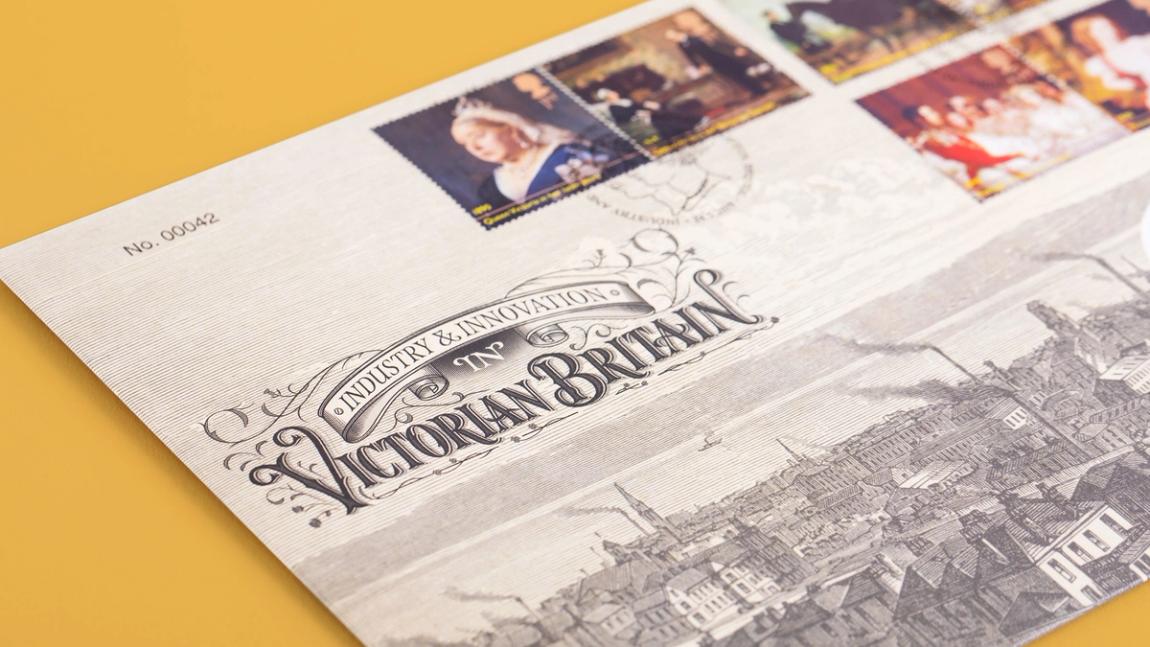
Queen Victoria Bicentenary Lettering
Elegant, commemorative lettering for a Royal Mail and Royal Mint collector’s edition celebrating Queen Victoria’s Bicentenary.
I worked with Common Curiosity to design the lettering for a limited-edition stamp and coin pack, created to mark Queen Victoria’s Bicentenary.
The packaging showcases six Special Stamps alongside an official Royal Mint Bicentenary £5 Coin.
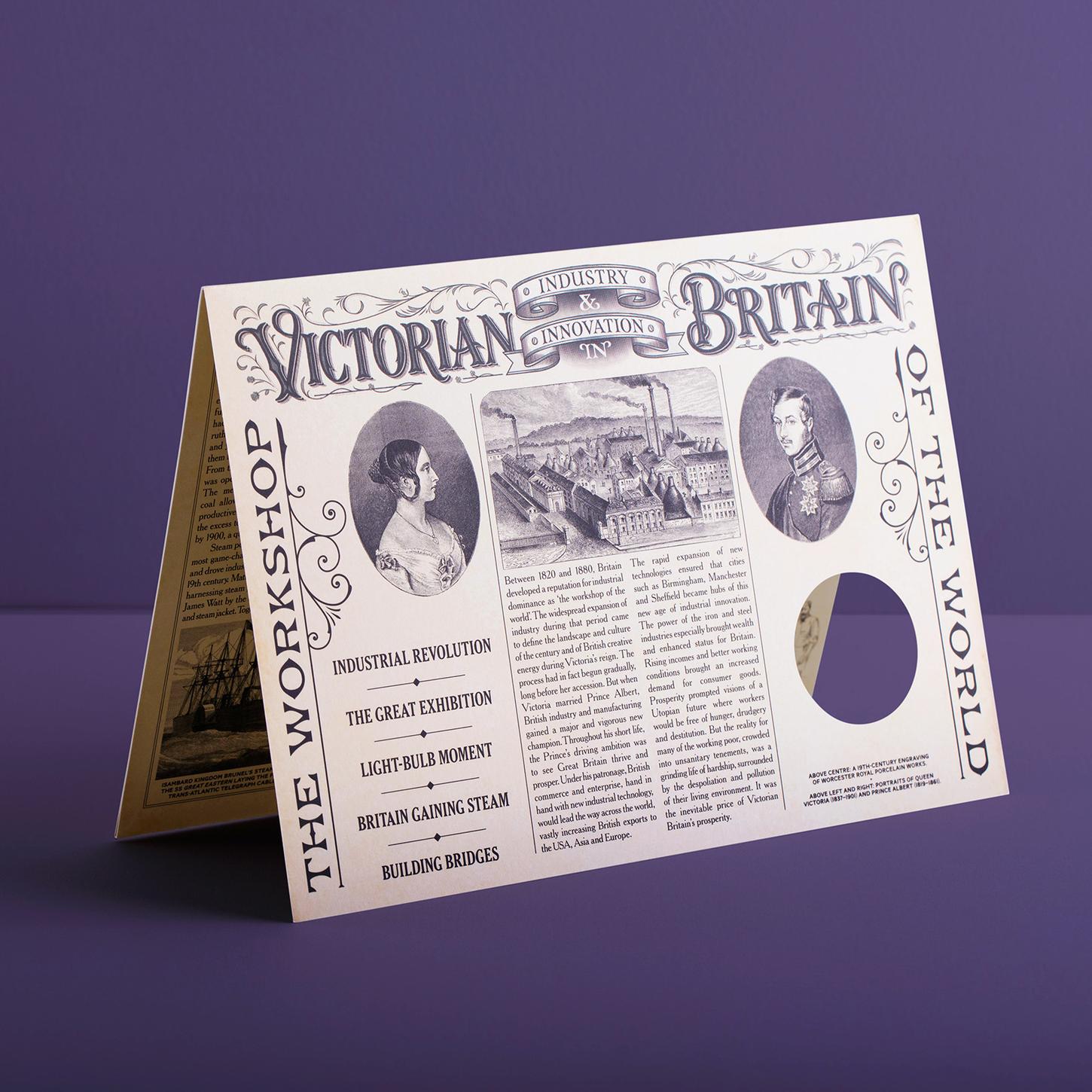
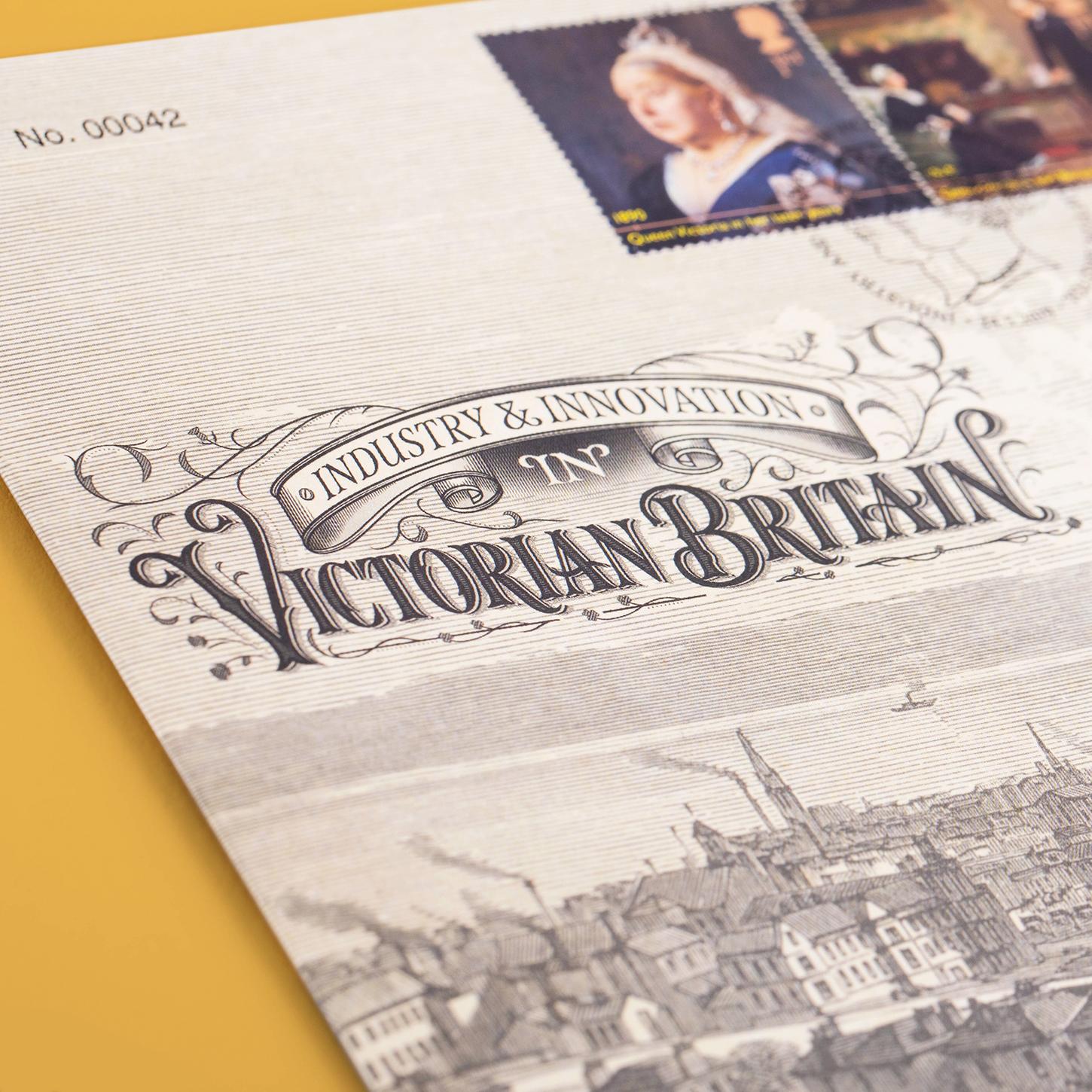
The lettering was crafted to reflect the grandeur of the Victorian era, complemented by decorative flourishes.
I incorporated floral elements symbolising the four nations of the UK – roses, daffodils, thistles and shamrocks – woven into the design.
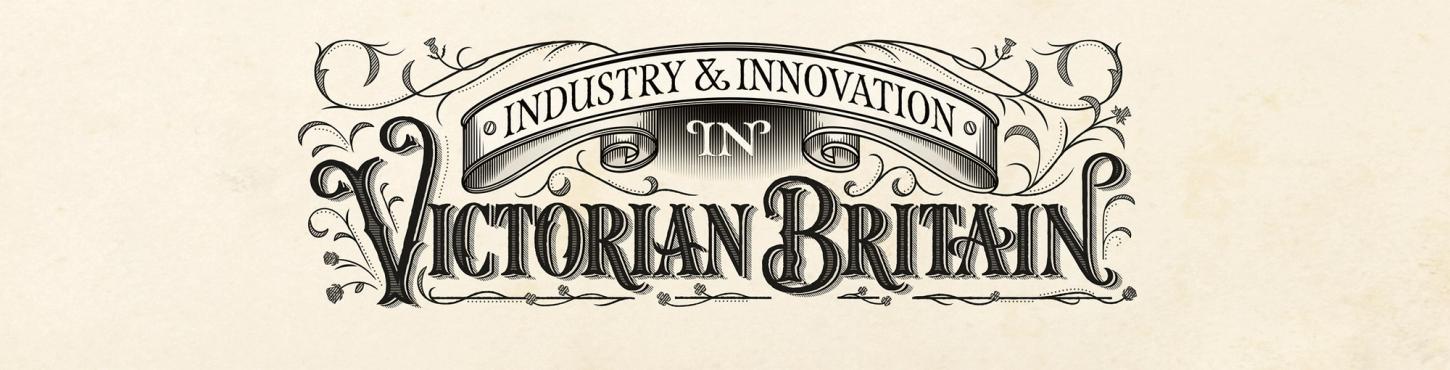
A beautifully presented collector’s item, uniting historic elegance with intricate detailing, making it a fitting tribute to Britain’s Victorian legacy.